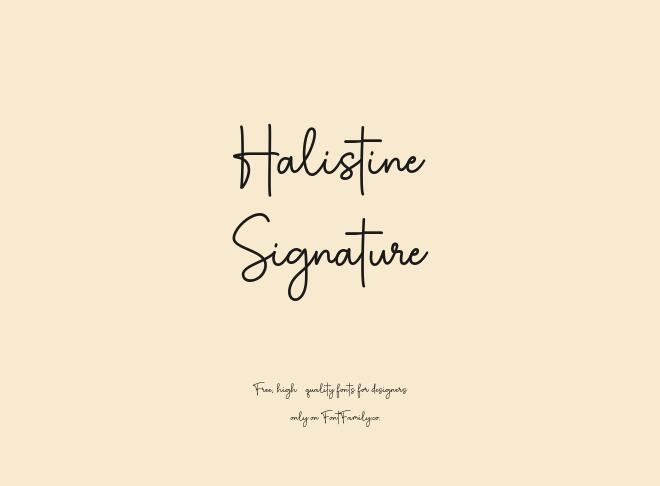
Halistine Signature Font
Introducing the Halistine Signature Font, a beautiful handwritten script from TypoBureau Studio. With its elegant and natural strokes, Halistine offers a soft, flowing aesthetic that is perfect for logos, invitations, posters, and more. Its unique, signature-style letters make it stand out among other fonts, offering a personal touch to any design. Halistine Signature Font is reminiscent of handwritten letters, giving a nostalgic and intimate feel to your projects. It's a great choice for designers looking to add a touch of elegance and personality to their work. The font's versatility and charm make it a must-have in every designer's toolkit. Whether you're designing a wedding invitation or creating a logo for a boutique, Halistine Signature Font is the perfect fit.